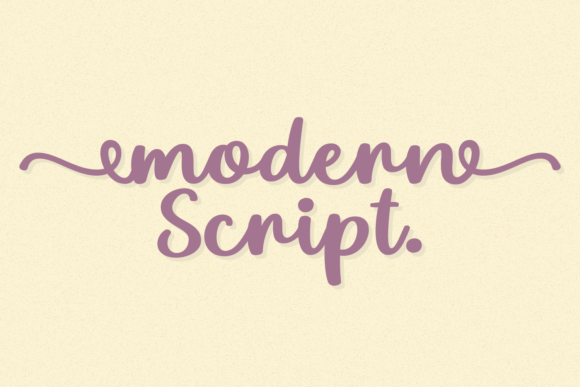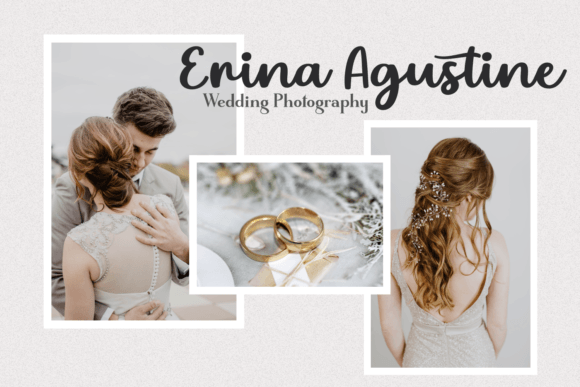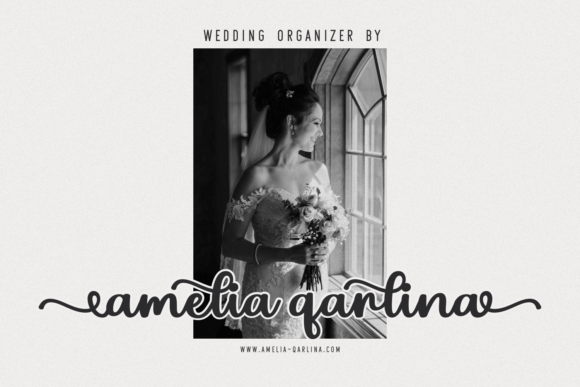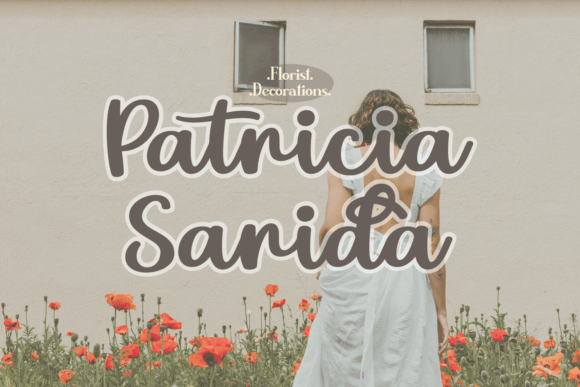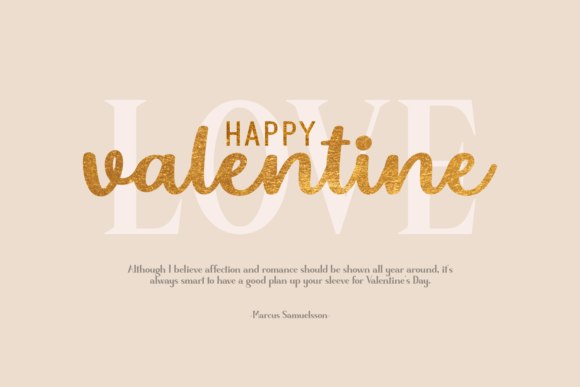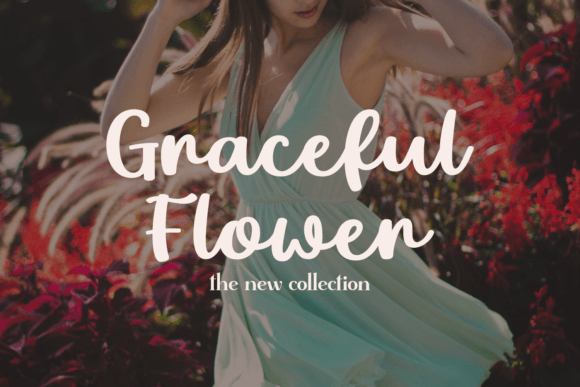
Introducing Cutie Raskila Font: The Perfect Handwritten Touch for Your Designs
Are you looking for a font that exudes charm and elegance? Look no further than Cutie Raskila Font! This beautiful handwritten font is perfect for adding a personal touch to your designs, making it ideal for wedding invitations, thank you cards, quotes, greeting cards, logos, business cards, and more.
The Charm of Cutie Raskila Font
Cutie Raskila Font feels equally charming and elegant, making it a versatile font that can be used in a variety of design projects. Its handwritten style gives it a unique and personal feel, making it perfect for designers and crafters who want to add a touch of warmth and personality to their work.
Perfect for Wedding and Greeting Cards
One of the standout features of Cutie Raskila Font is its suitability for wedding invitations and greeting cards. The font’s elegant and charming style makes it perfect for formal and informal wedding invitations, as well as other special occasions such as baby showers, birthdays, and anniversaries. Additionally, its clear and legible writing style ensures that your message is conveyed with ease.
Cutie Raskila Font is PUA (Private Use Area) encoded, which means that you can access all the glyphs and ligatures with ease. This feature makes it easy to use the font in your designs, even if you’re not a professional typographer. With PUA encoding, you can easily access the font’s built-in features, such as swashes, ligatures, and alternates, to create beautiful and unique designs.
Cutie Raskila Font can be used in a wide range of design projects, including:
- Quotes and typography art
Why Choose Cutie Raskila Font?
So why choose Cutie Raskila Font for your design projects? Here are just a few reasons:
- Unique and charming handwritten style
- Elegant and versatile design
- Perfect for wedding and greeting cards
- Endless design possibilities
Tips for Using Cutie Raskila Font
Here are a few tips for using Cutie Raskila Font in your design projects:
- Use it as a headline font to add a touch of elegance and sophistication
- Pair it with a sans-serif font for a modern and stylish contrast
- Experiment with different font sizes and colors to create visual interest
- Use the font’s built-in features, such as swashes and ligatures, to add personality to your designs
In conclusion, Cutie Raskila Font is a beautiful and versatile handwritten font that is perfect for adding a touch of charm and elegance to your design projects. With its PUA encoding, elegant design, and endless possibilities for use, it’s a must-have font for designers and crafters. So why not give it a try and see how it can elevate your designs?